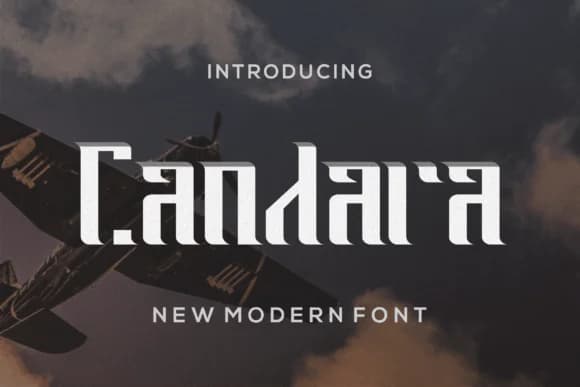
1 / 6About Candara Font
Candara by prayoga_std is a modern slab serif that balances geometric precision with genuine warmth, avoiding the cold sterility that can plague many geometric typefaces. The sturdy letterforms command attention in any context while remaining genuinely readable, which makes them reliable for both print and screen applications. It's built for real impact across different design disciplines, from logo lockups and premium packaging for artisan brands to editorial spreads where a strong typographic foundation really matters to the work.
Magazine mastheads and book covers gain real presence from this typeface's contemporary sensibility paired with underlying substance and intentional design. The consistent letterforms prove especially effective for branding applications where you're communicating both professionalism and approachability without compromising either quality. Wedding invitation suites with a modern edge showcase Candara's confident personality beautifully, as do product labels for boutique skincare lines or specialty goods where refined typography signals quality to discerning consumers. Stationary systems, business cards, and correspondence materials all benefit significantly from its structural clarity and distinctive character.
Candara Font is a slab serif font that shines as a display or heading face. Pair it with a clean sans-serif or serif font for body text β the contrast creates a clear hierarchy while the two styles stay balanced and easy to read.